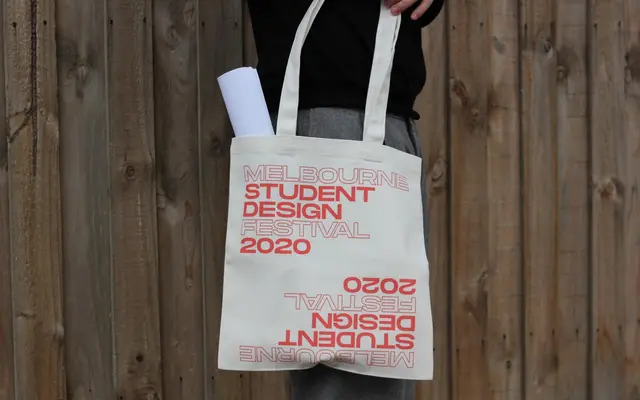
PP Monument
A brutalist grotesque grown into a 90-style system across five widths and nine weights for branding, editorial and digital work.
PP Monument is a brutalist grotesque designed to make bold, structural statements. The 2025 update has grown it into a 90-style system: five widths from Condensed through Wide, each in nine weights, in upright and italic, with a variable cut. That range makes Monument flex from compressed posters to comfortably wide editorial settings without breaking voice across screens and scales.
Grotesque sans inspired by brutalist architecture; 2025 update extends the family to five widths, each in nine weights, in upright and italic, totalling ninety styles plus a variable cut.